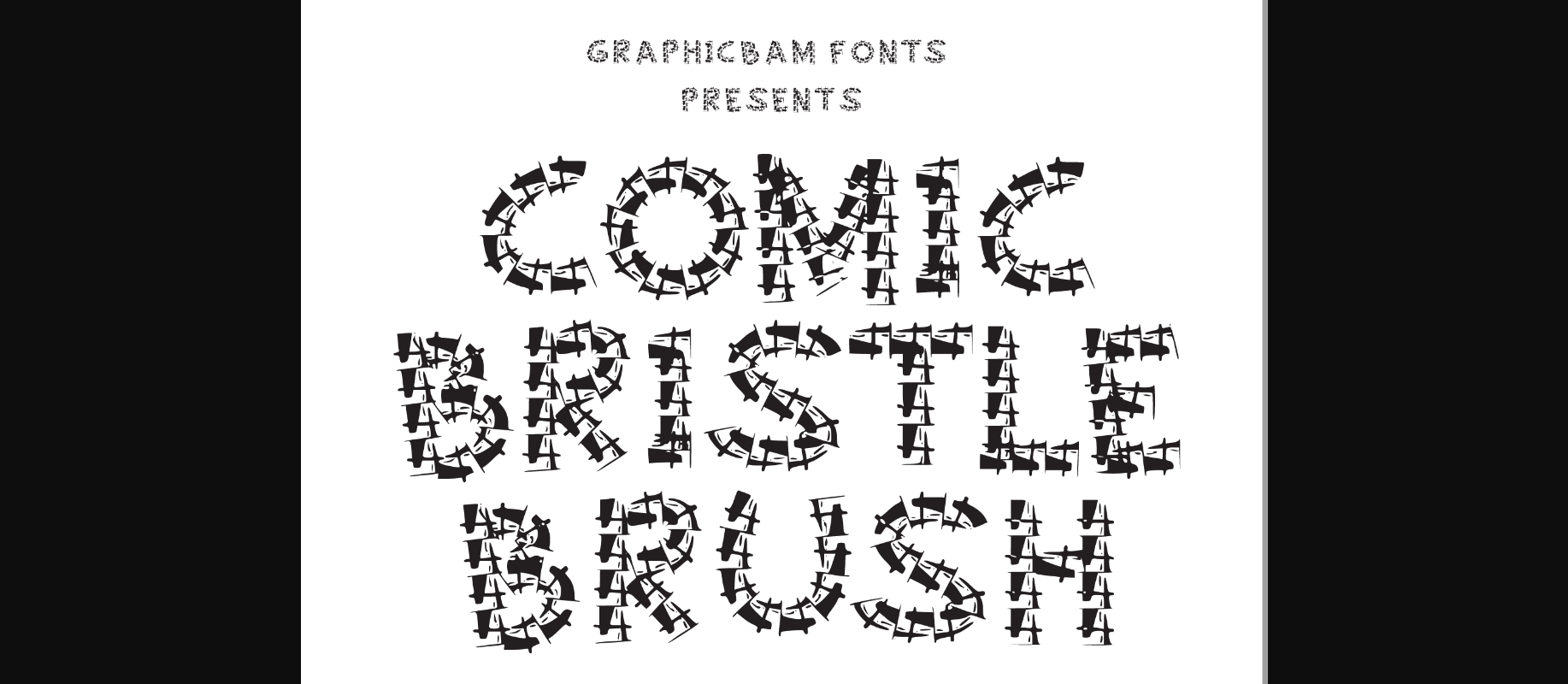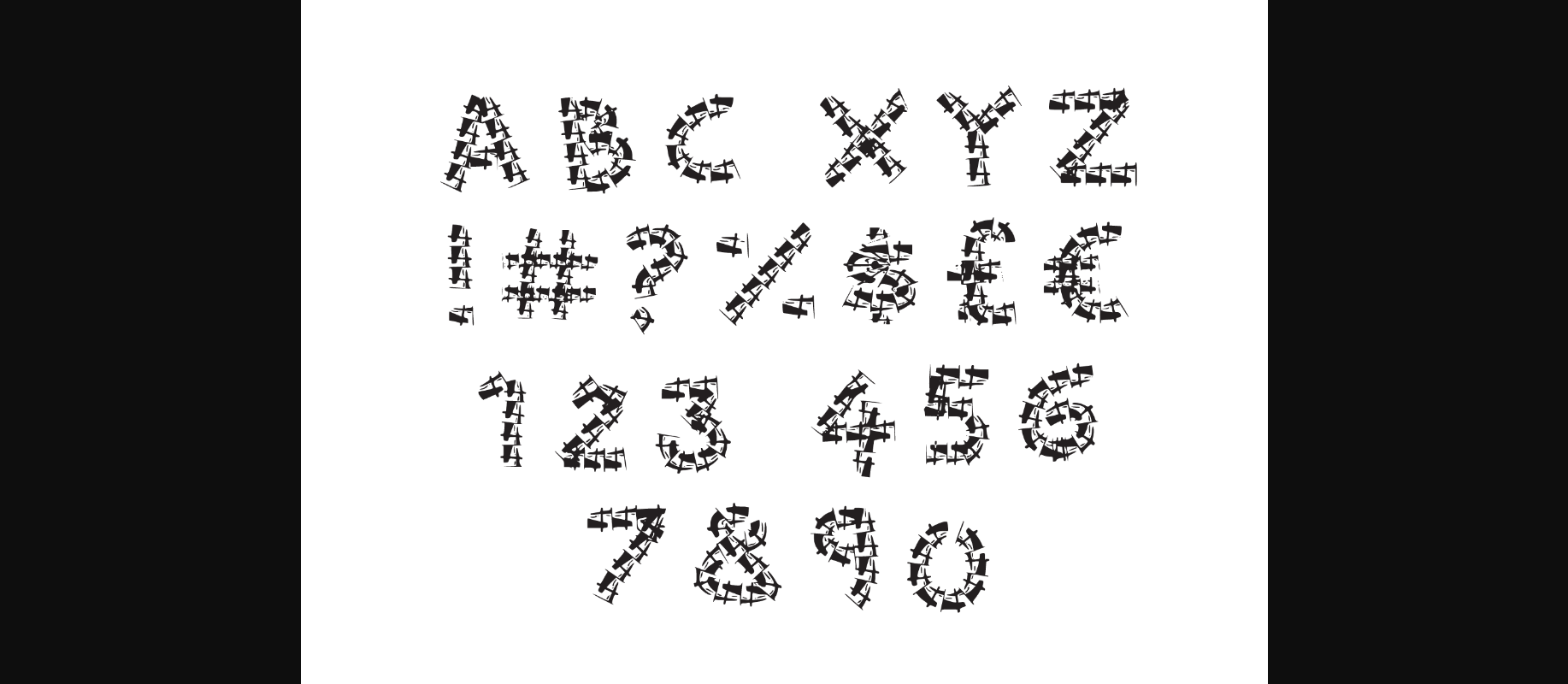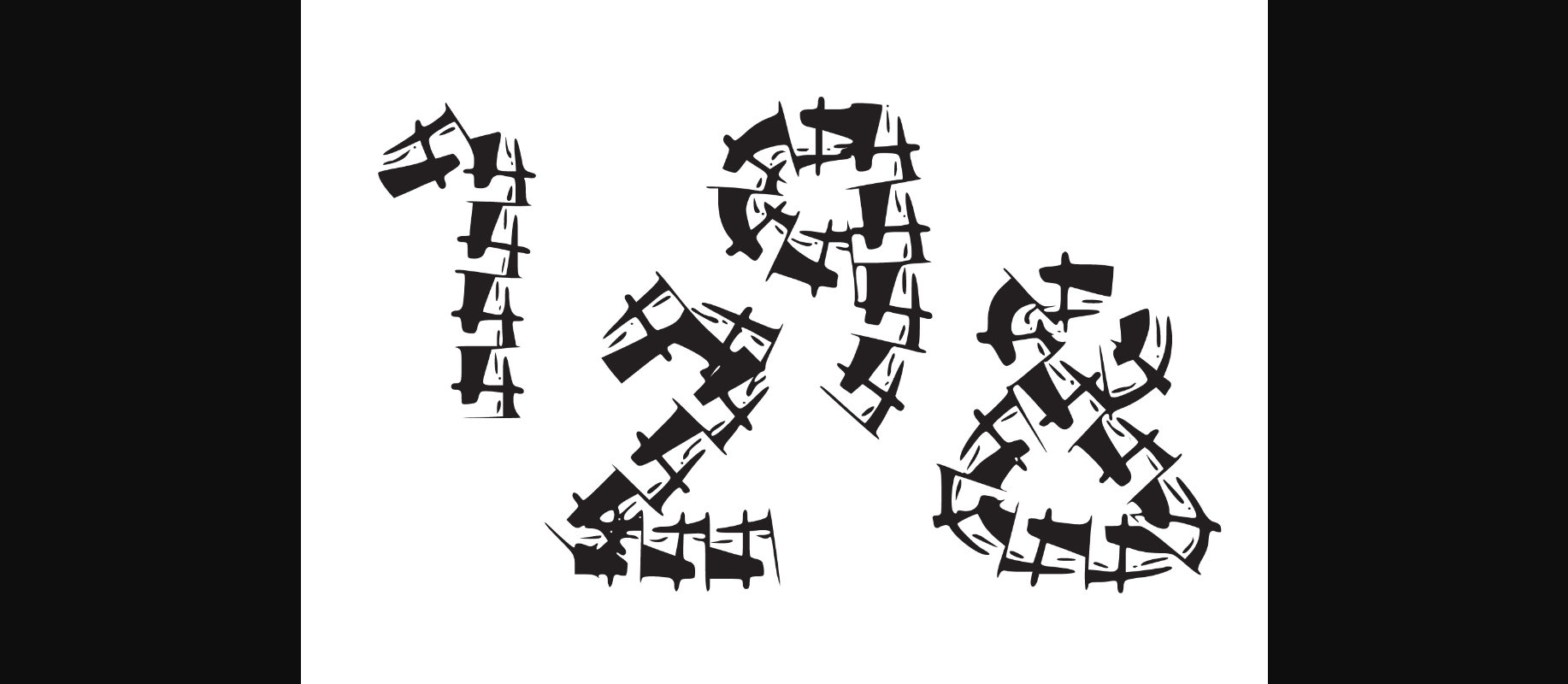
About Comic Bristle Brush Font
Comic Bristle Brush is a fun, cool and a bit odd decorative font. Add a playful touch to your designs with this unique and unusual font!